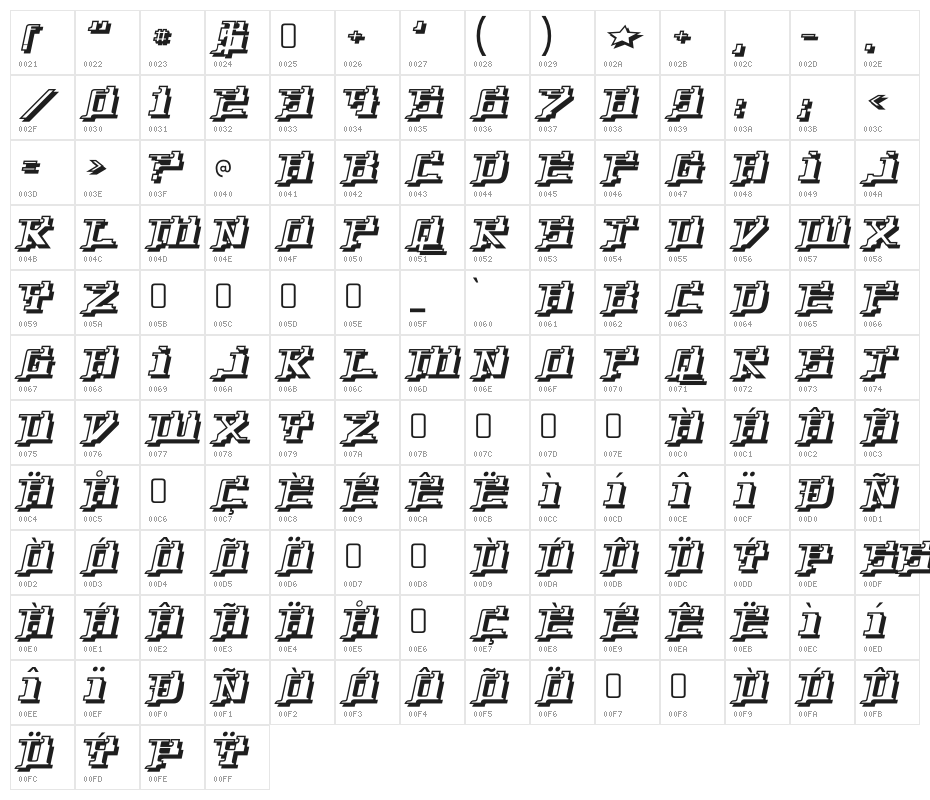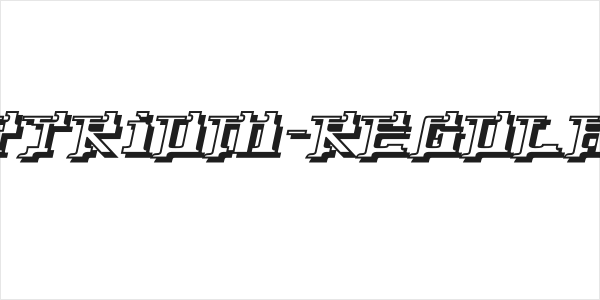
Yytrium-Regular Font
Yytrium-Regular Description
This font features a bold, three-dimensional appearance with a distinct shadow effect that gives it a dynamic and eye-catching look. The characters are blocky and angular, with sharp edges and a geometric style that suggests a modern, digital aesthetic. The uppercase and lowercase letters maintain a consistent style, with the lowercase being slightly smaller but equally bold. Numbers and special characters follow the same design principles, ensuring uniformity across all glyphs. The font's unique style makes it stand out, suitable for projects that require a strong visual impact.
| Proposed Projects | Ideal for video game titles, tech-themed posters, or digital art projects. |